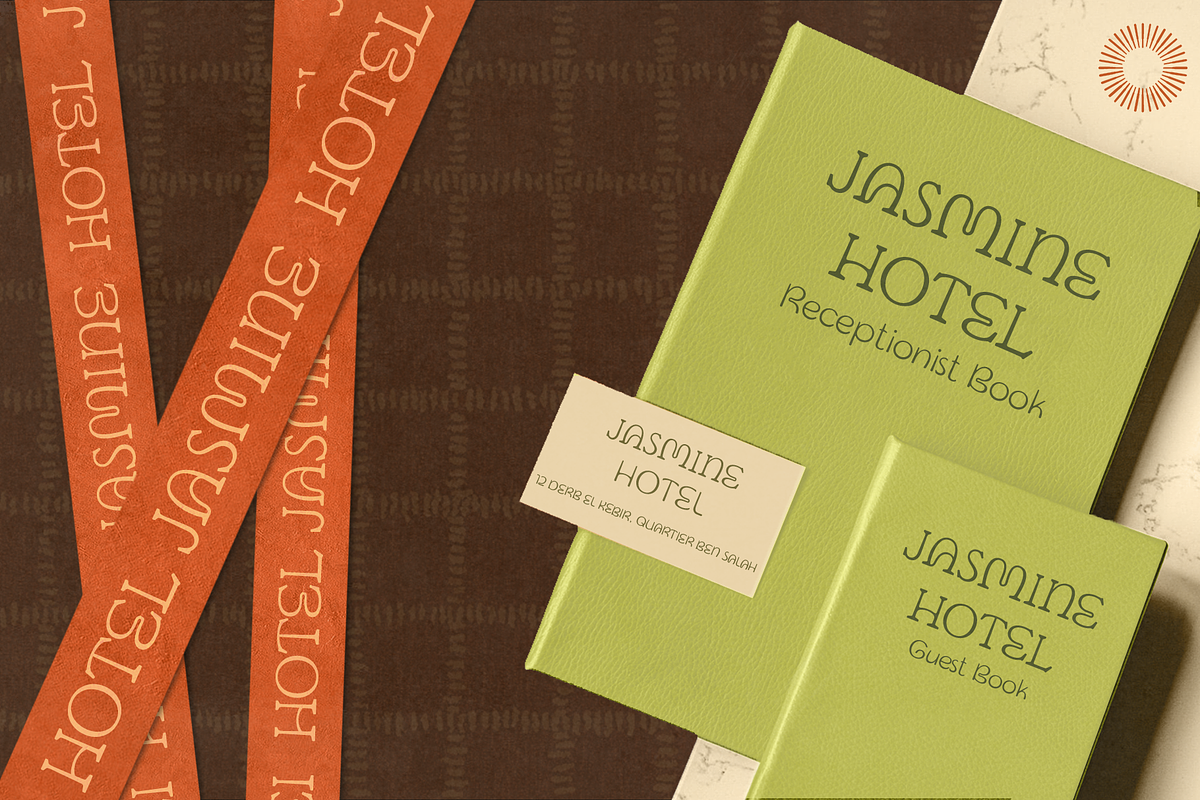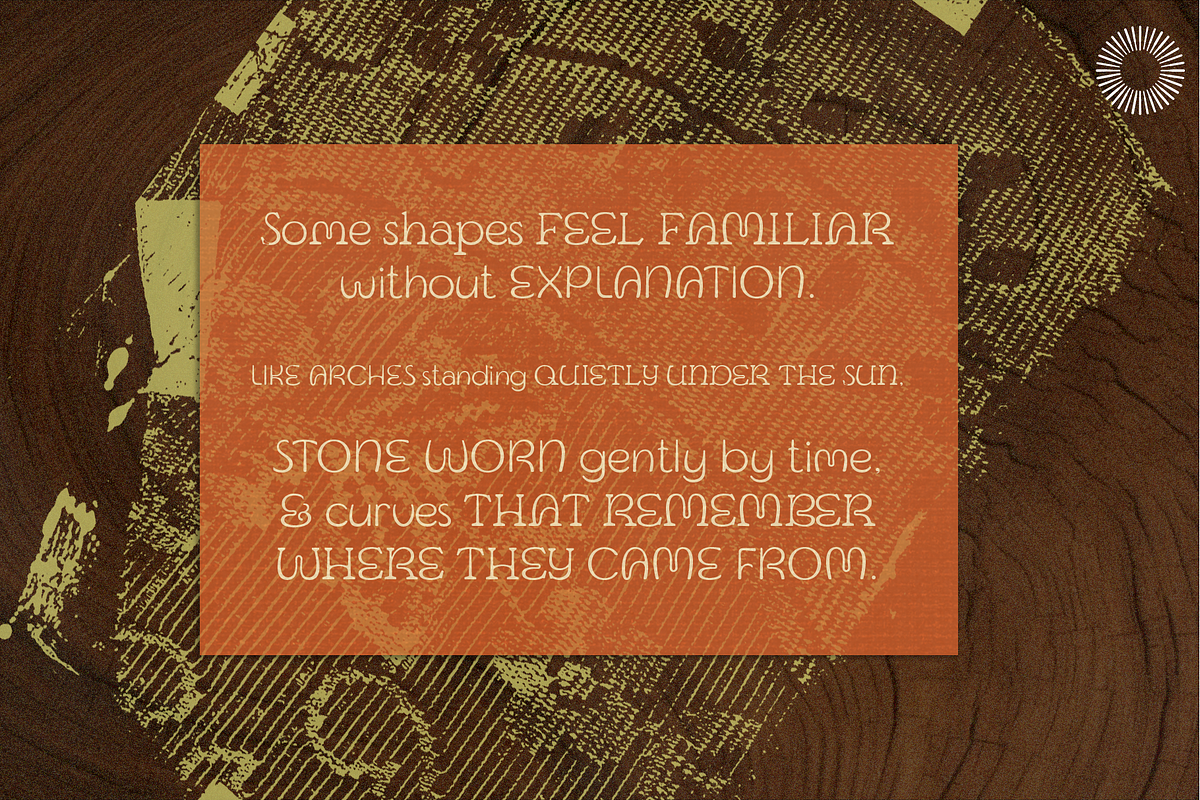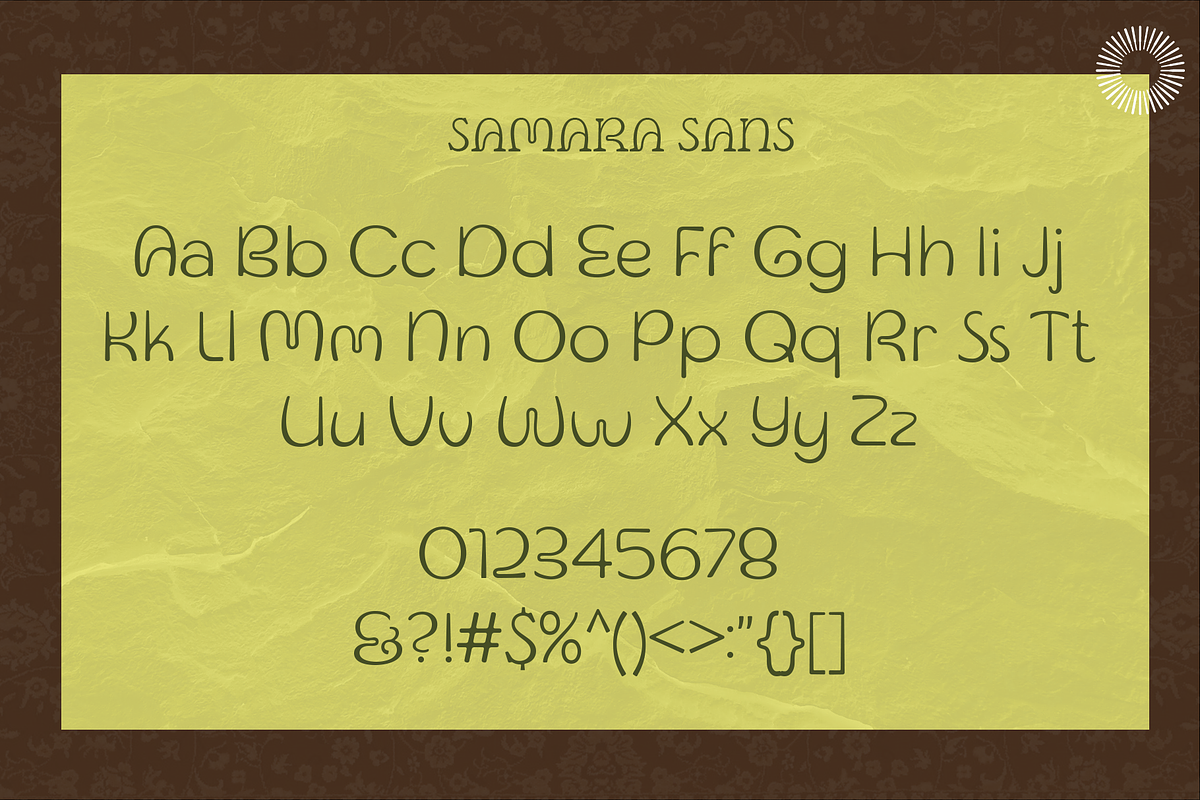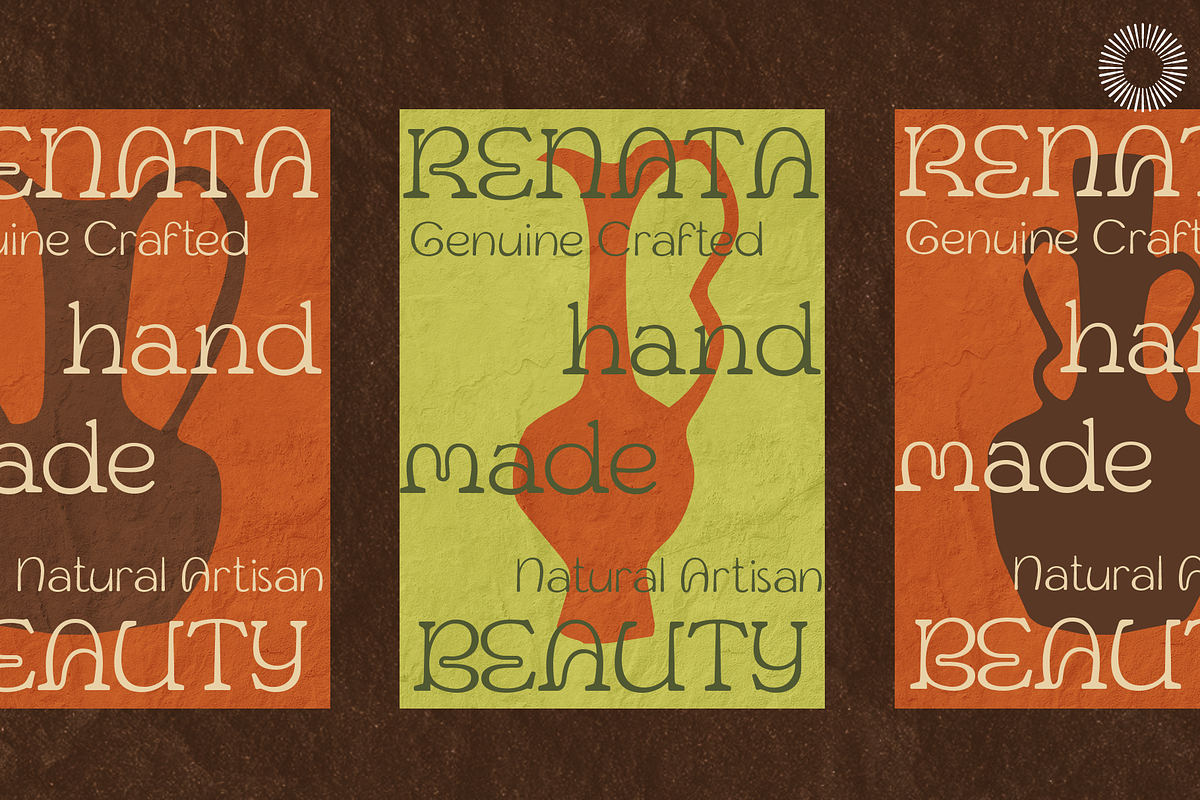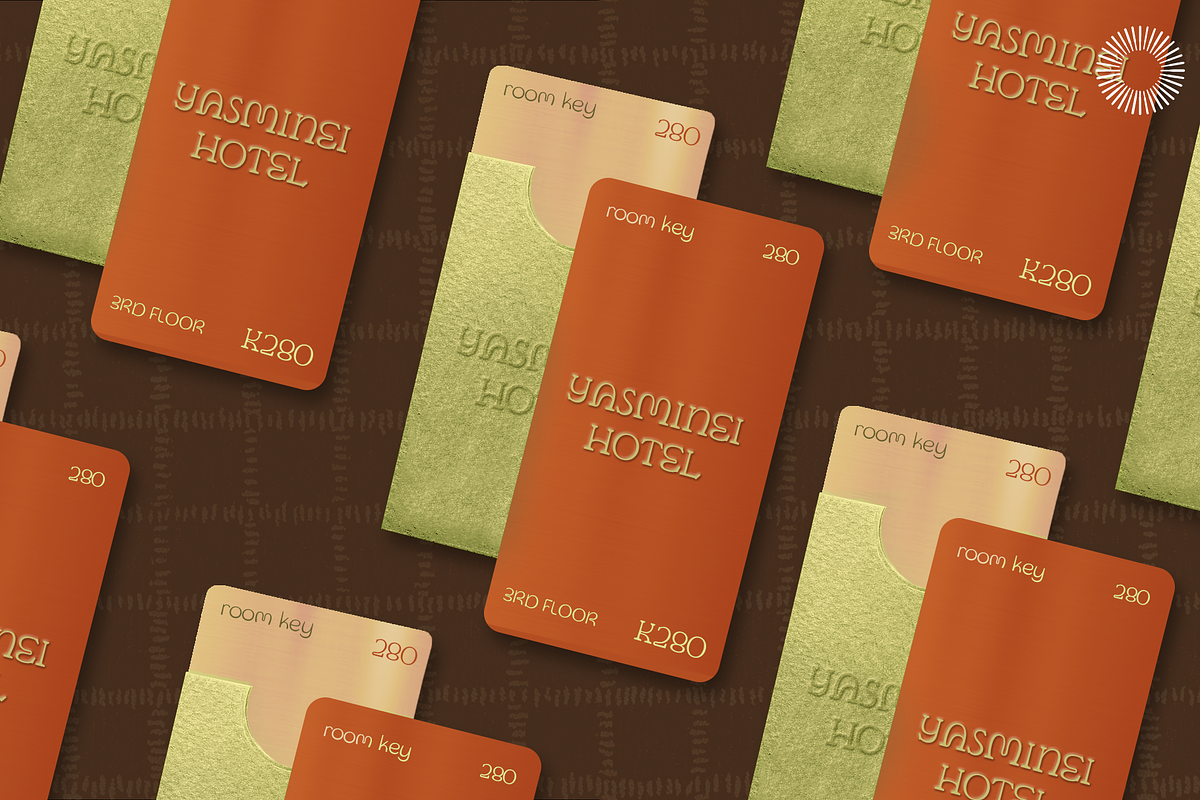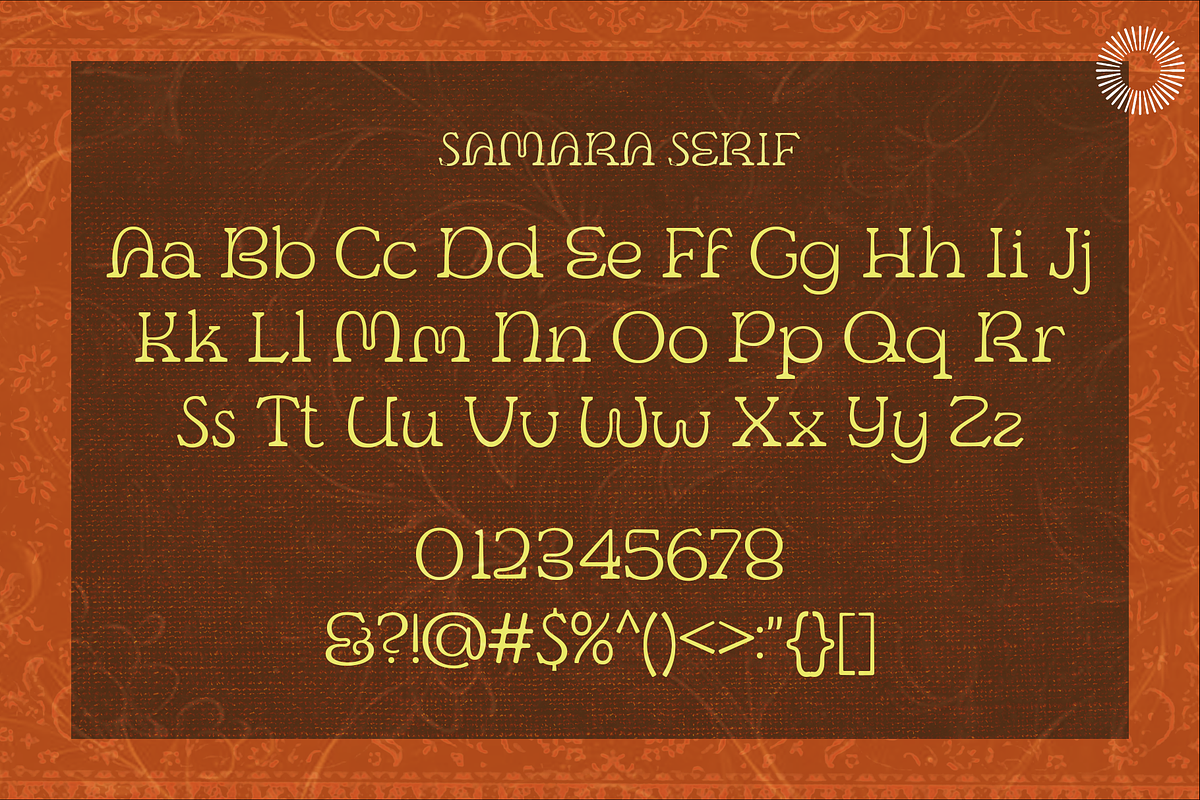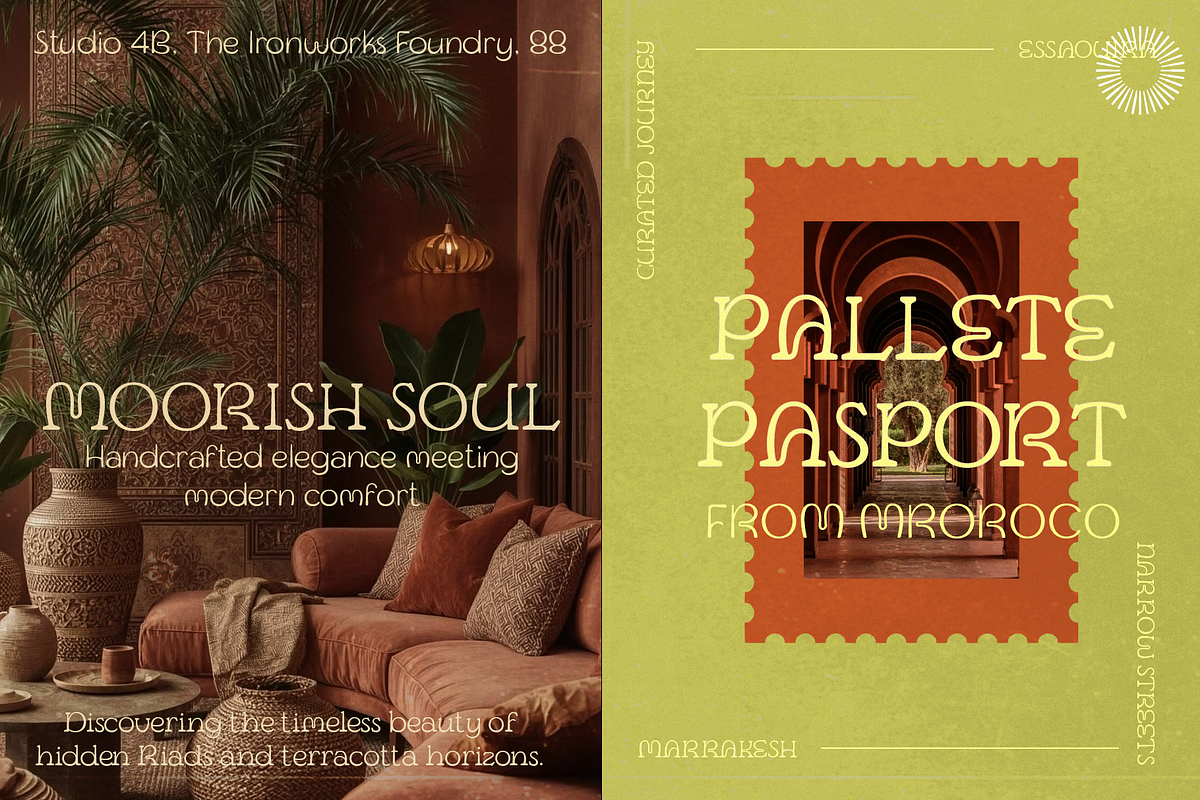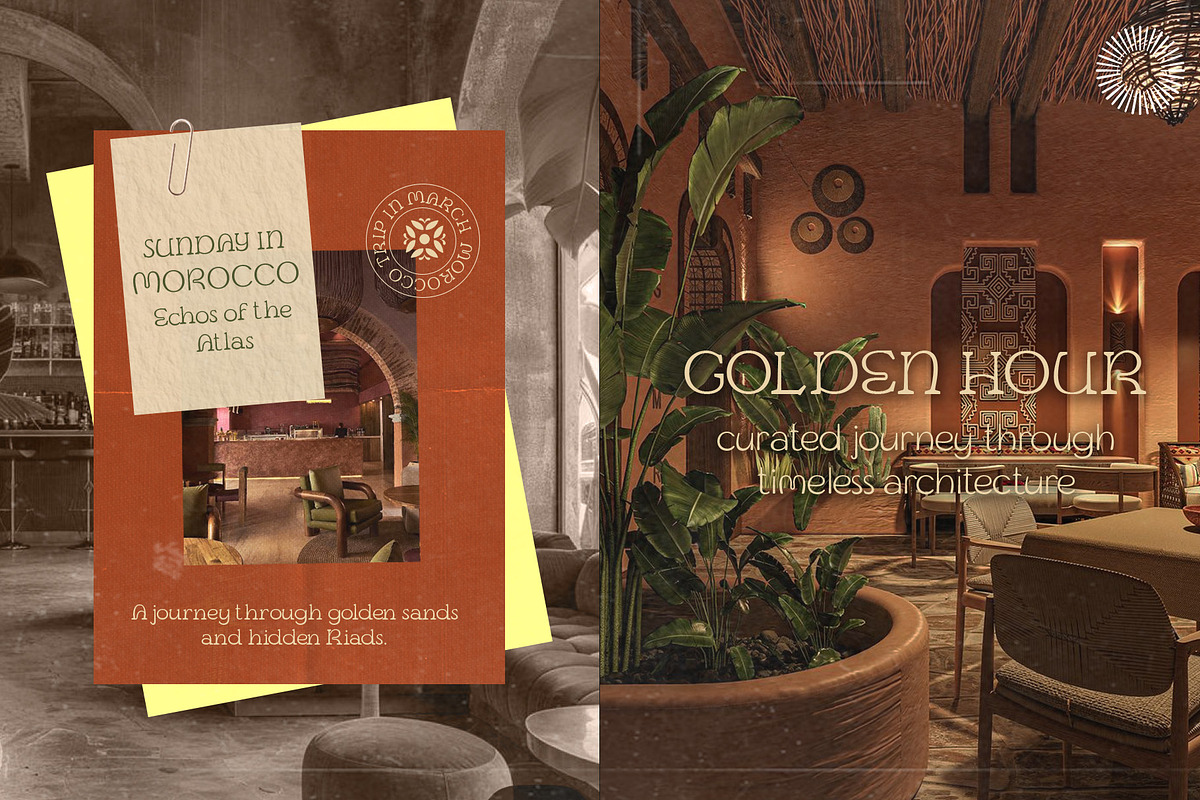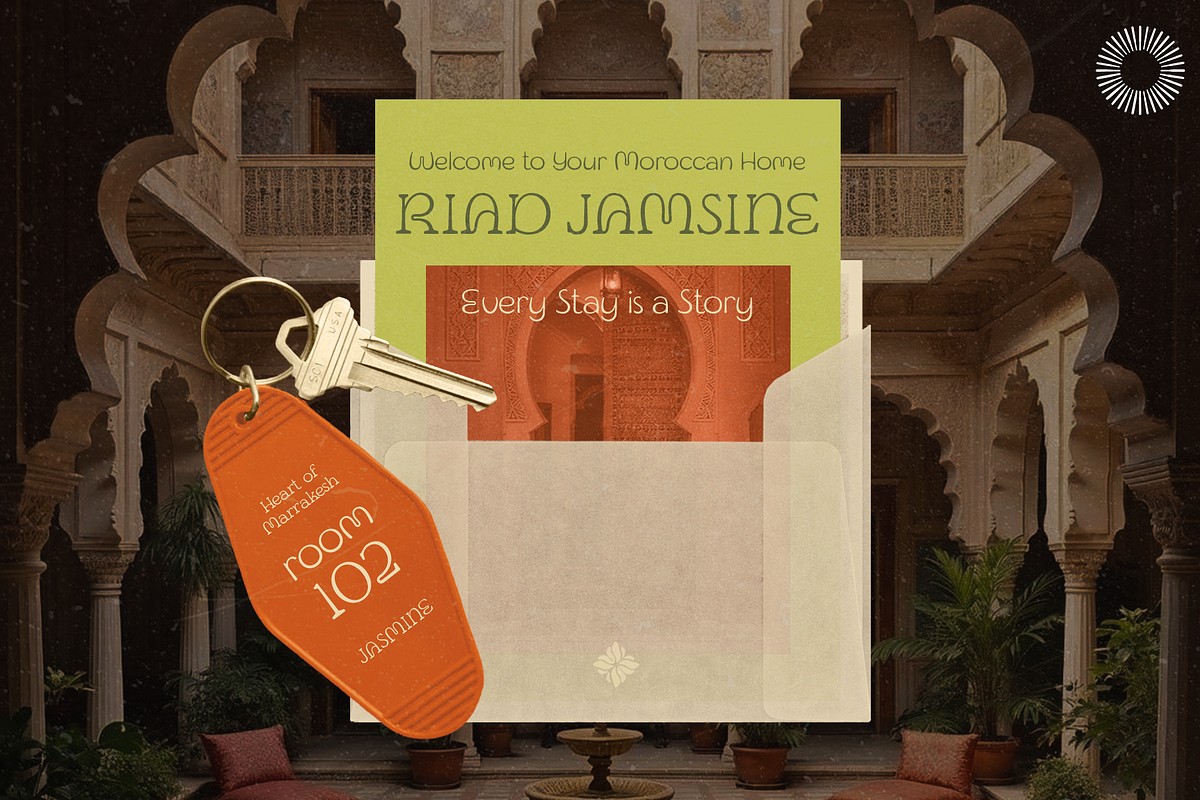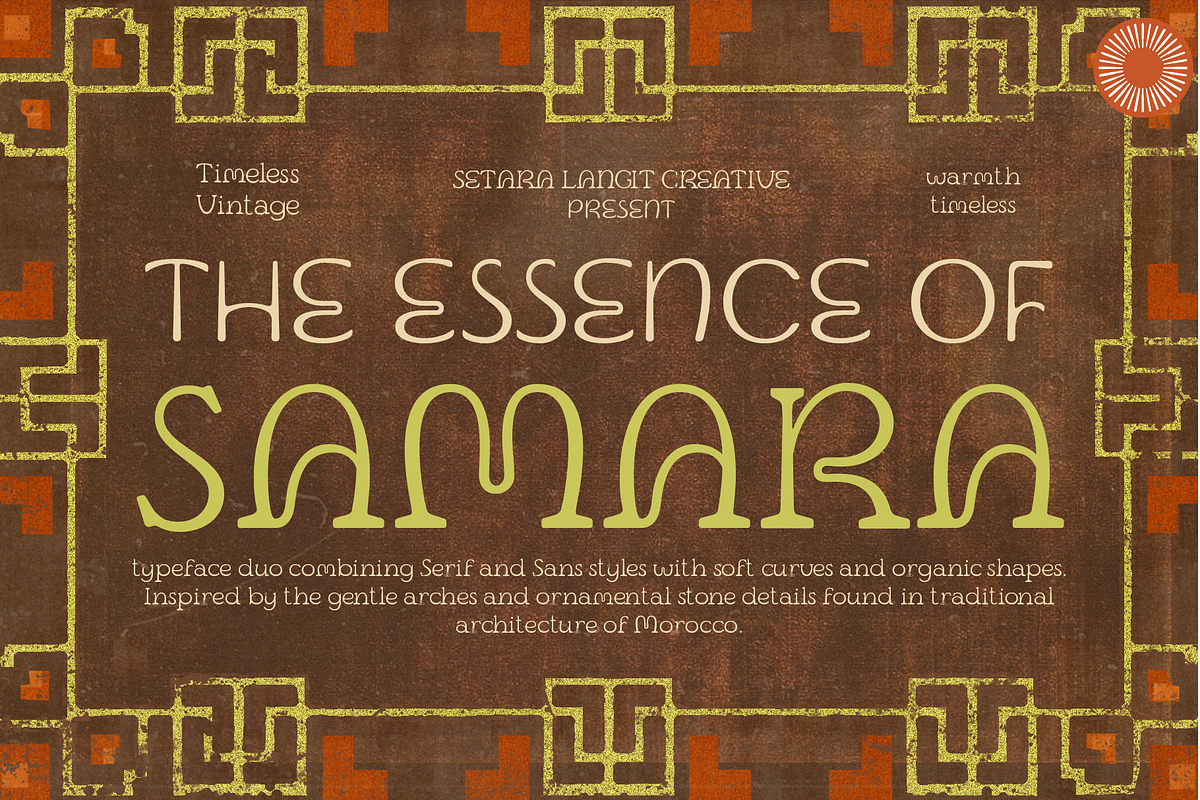
Samara – Serif+Sans Moroccan Exotic
Samara is a distinctive font duo that blends serif and sans styles with soft curves and organic, ornamental shapes—drawing inspiration from the timeless beauty of Moroccan architecture.
With its unique letterforms influenced by arches and decorative stone details, Samara brings a warm, cultural, and vintage feel into your designs. The combination of structured serif elements and smooth sans curves creates a harmonious balance between tradition and modernity.
This font duo is designed to stand out while remaining elegant, making it perfect for projects that seek both character and sophistication.
Serif font (uppercase, lowercase, numbers, punctuation)
Sans serif font (uppercase, lowercase, numbers, punctuation)
Ready-to-use font duo pairing
Moroccan / Arabic-inspired letterforms
Soft curves and ornamental shapes
Unique vintage character
Balanced serif and sans combination
Perfect for: Branding, packaging, logos, travel design, cultural projects, restaurant branding, hospitality, editorial layouts, posters, and lifestyle brands.